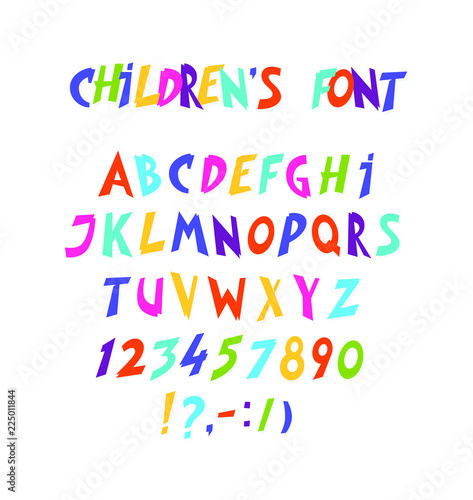
Full set of comic font. Vector. Letters and colored forms. A beautiful comic, modern font. Letters are symbols for the design of a poster, flyer or presentation. Bright graphic elements. Signs for log